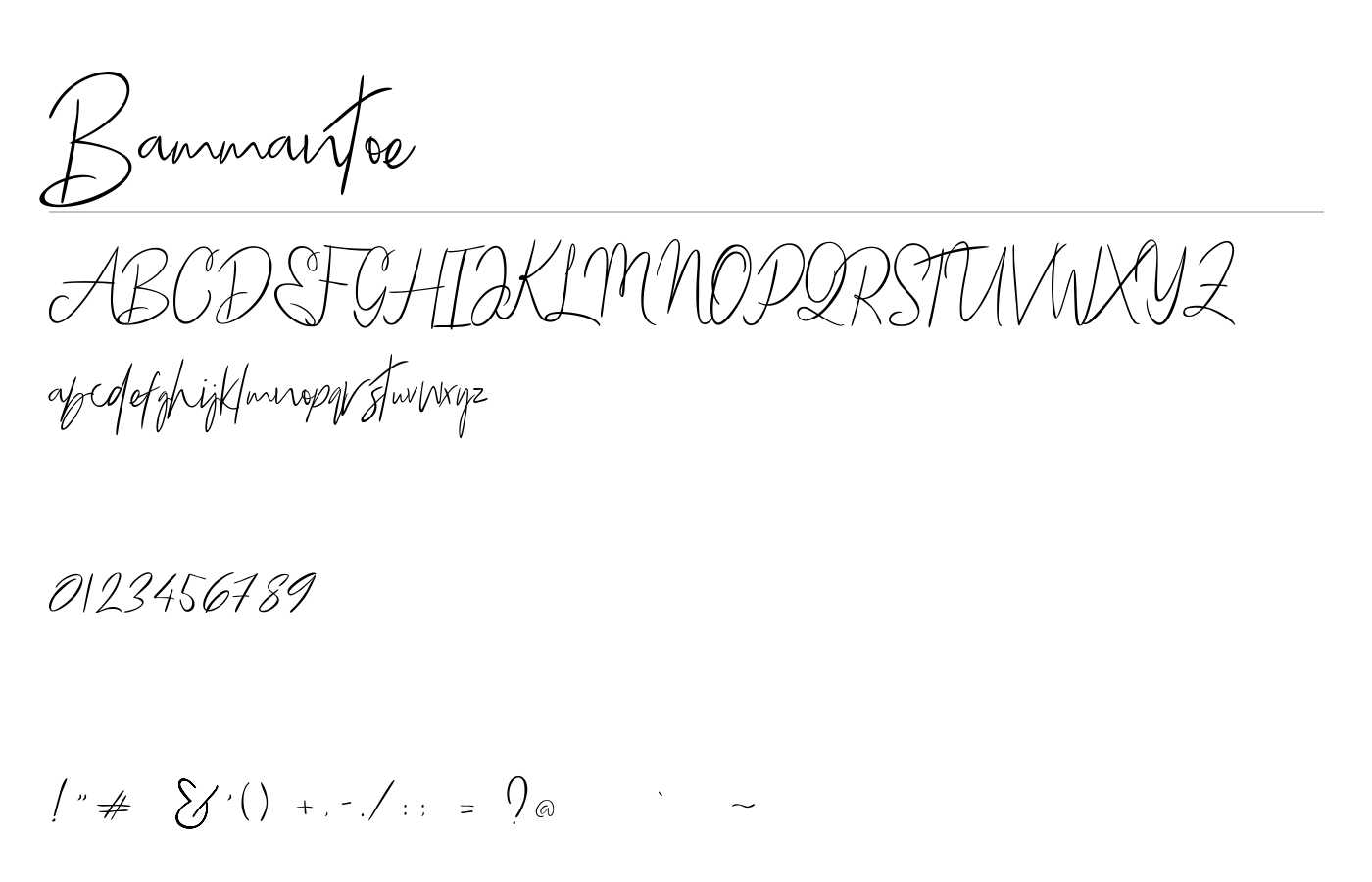
Bammantoe is a delicate, handwritten script font with a light, airy feel that combines elegance with a casual, personal touch. Its thin, flowing strokes and unique letterforms give it a stylish, modern vibe, making it perfect for branding, invitations, and creative projects that seek a refined yet approachable look. This font works well in headlines or decorative uses where a graceful, artistic impression is desired.
Bammantoe Font
About Bammantoe Font